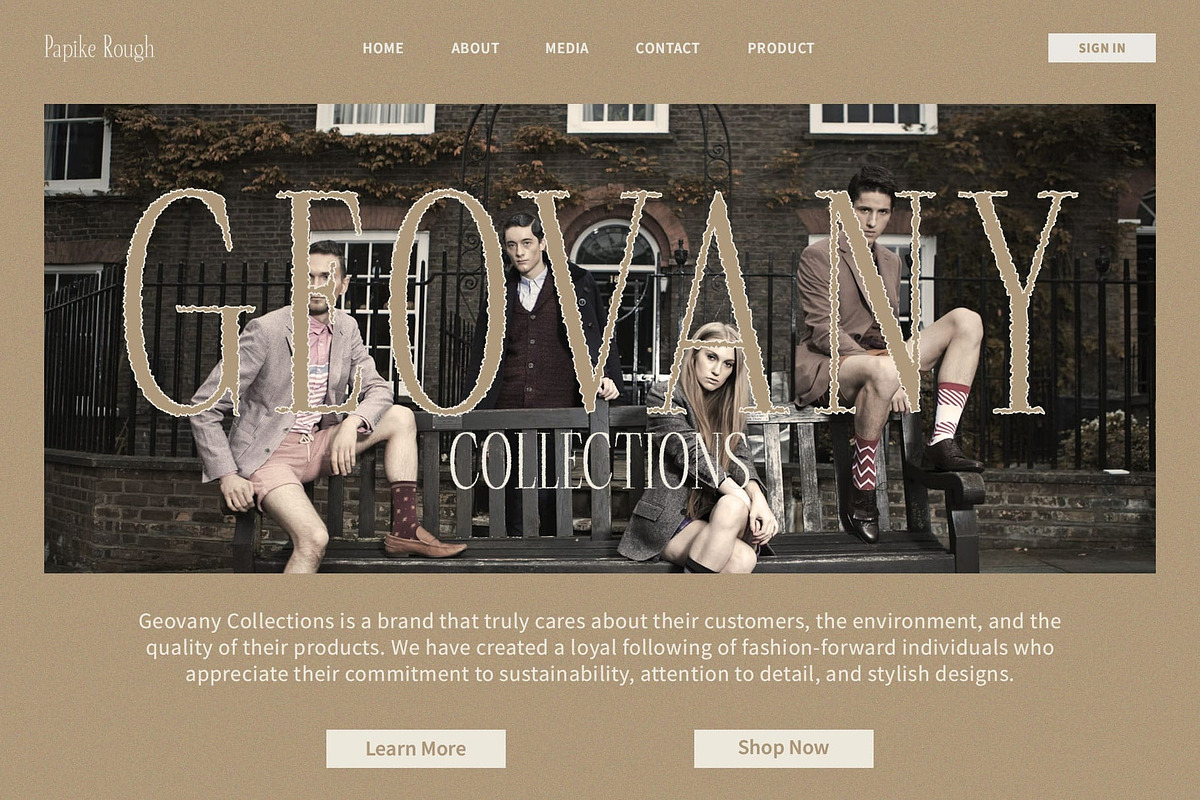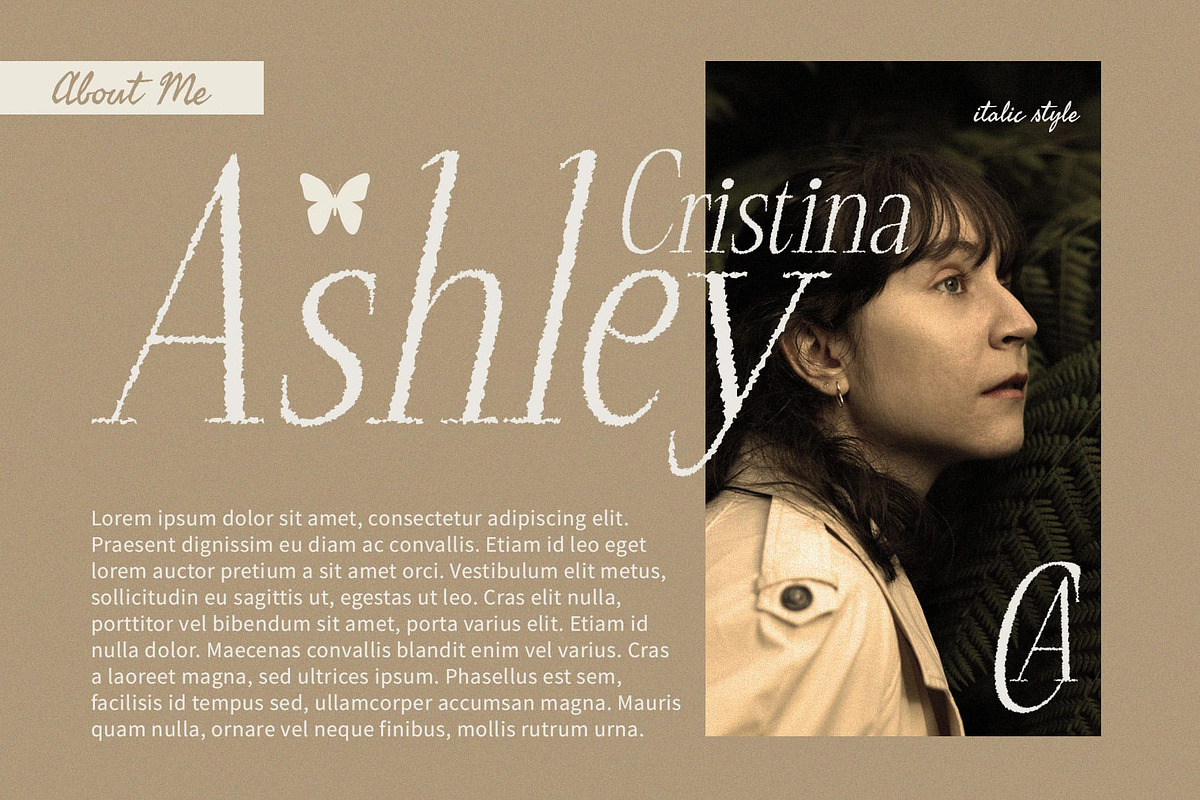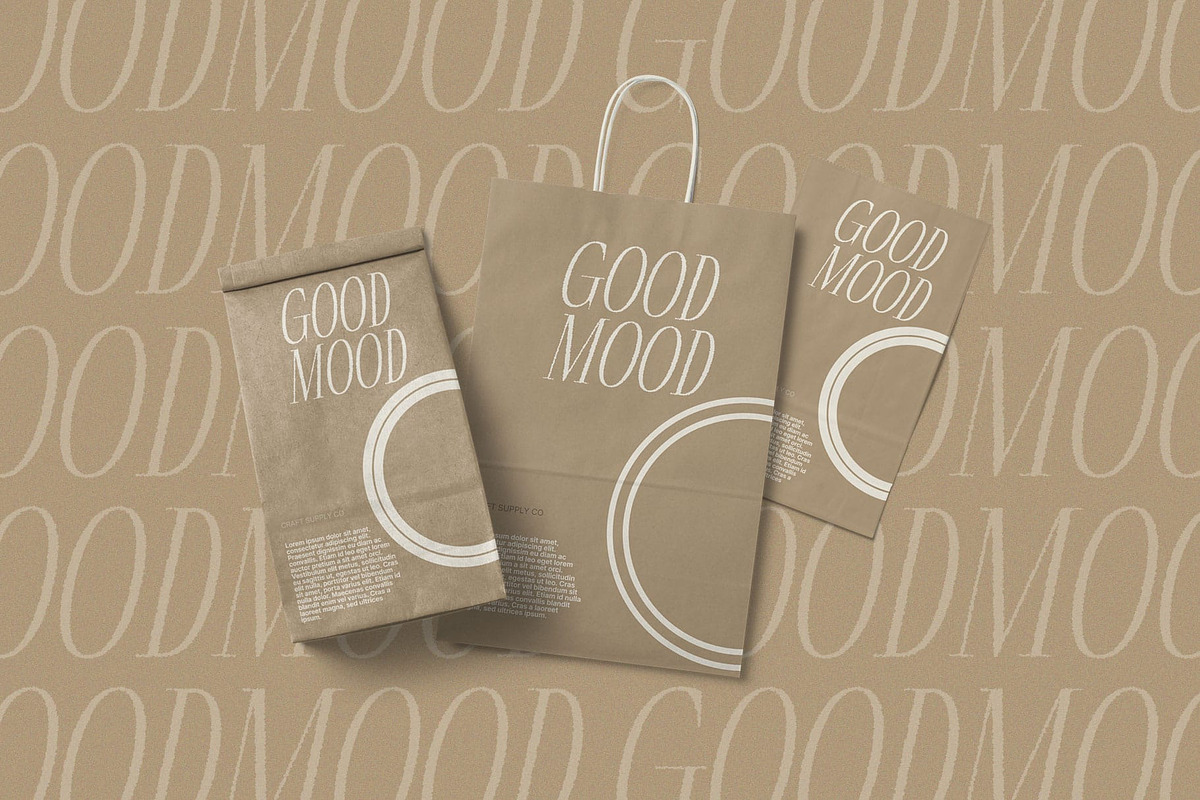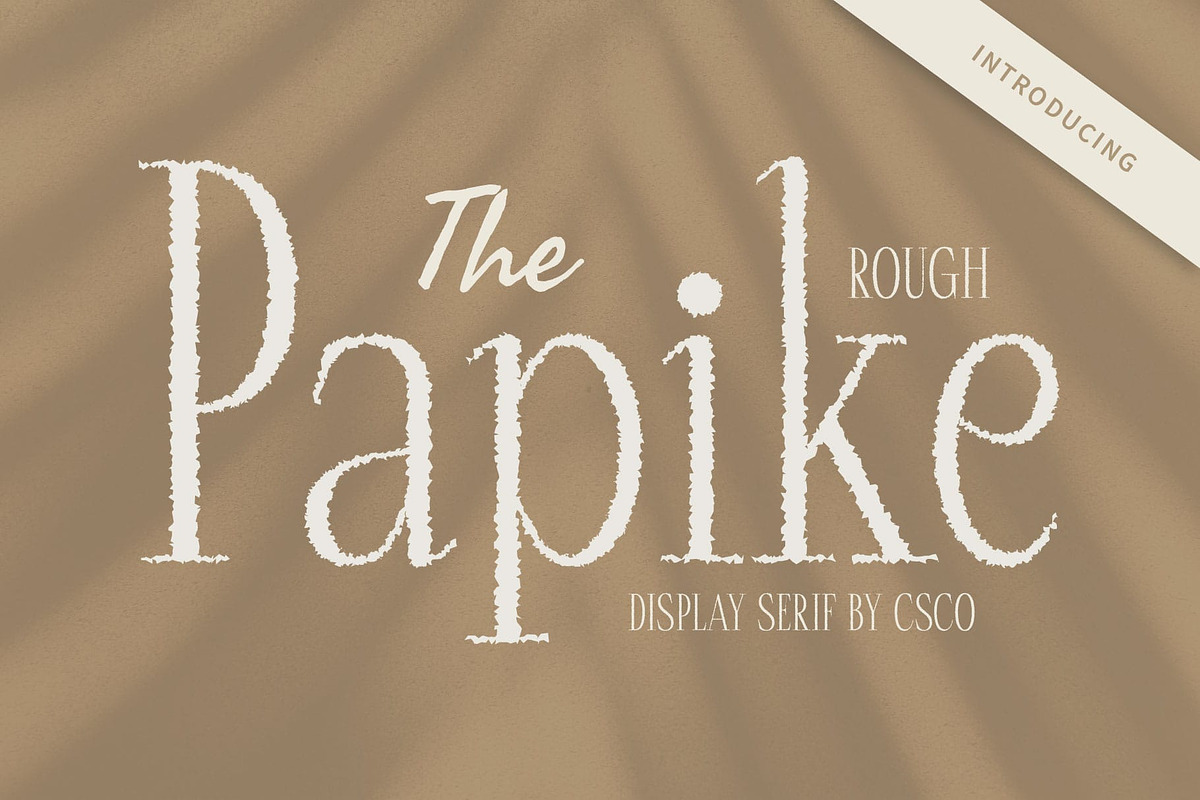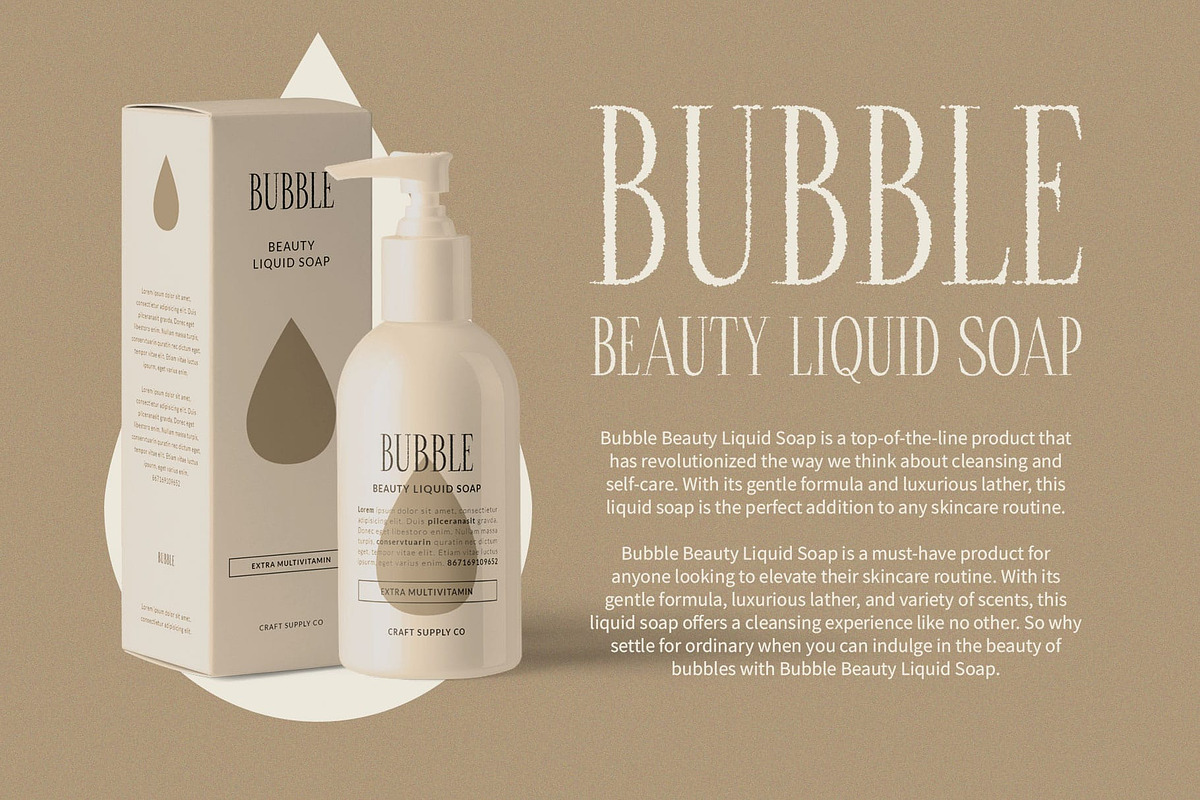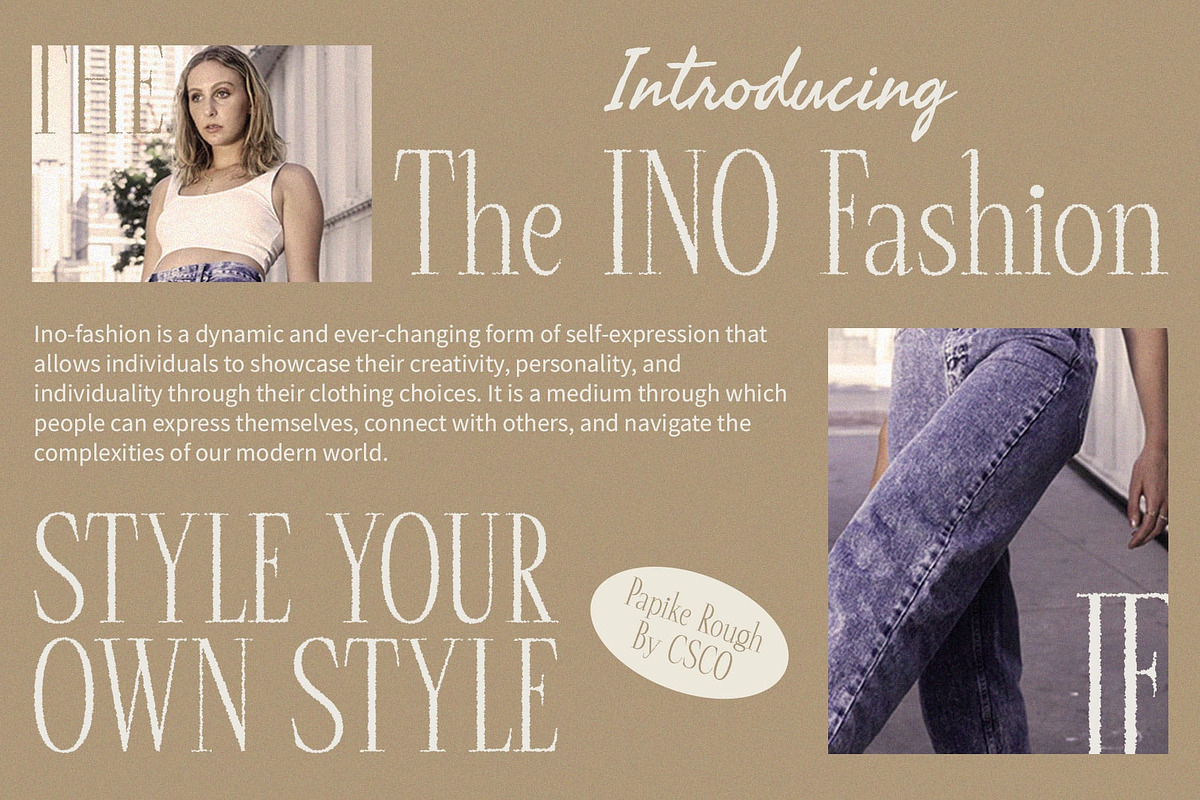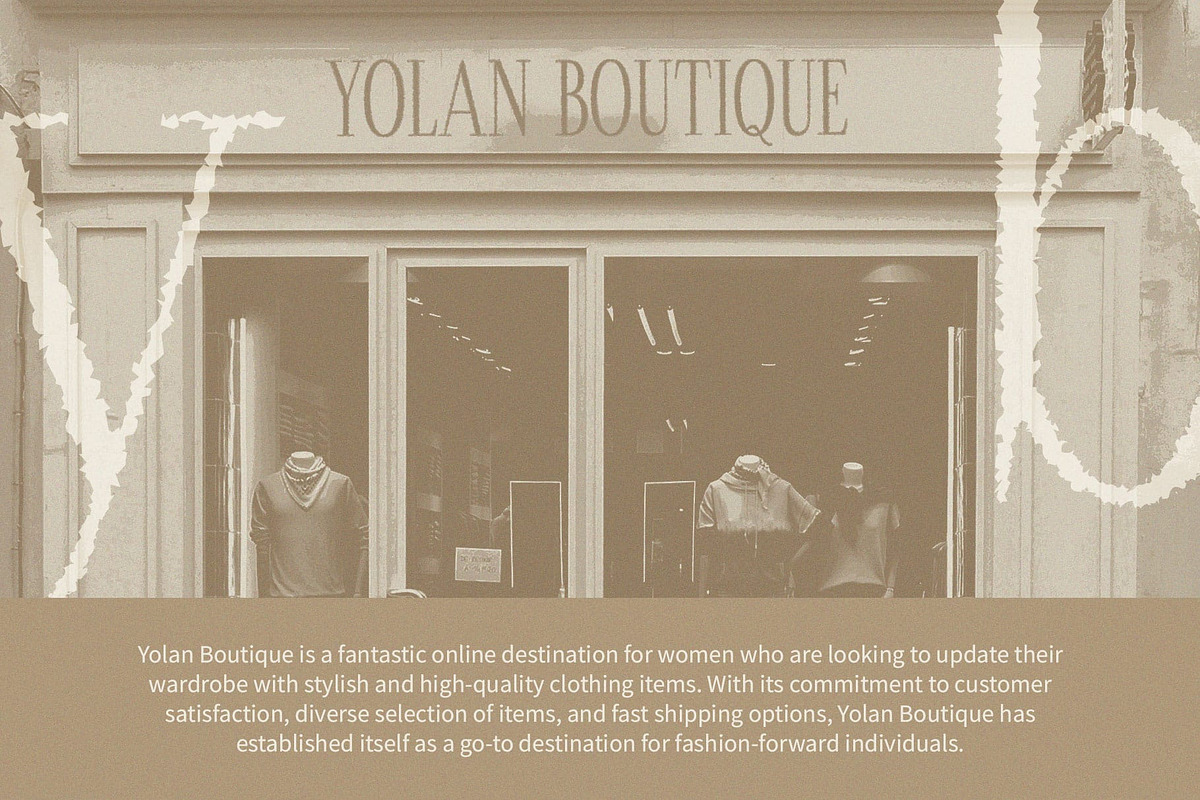
Papike Rough
Papike Rough: Vintage Charm in Display Typography
Vintage-Inspired Serif Design Papike Rough embodies the essence of vintage charm with its condensed serif display style. The moderate contrast adds depth to its nostalgic appeal.
Rough Texture for Retro Vibes Infused with a rough texture effect, This font exudes retro vibes reminiscent of old-school signage and typography. The roughness adds character and authenticity to its appearance.
Ideal for Vintage and Retro Designs Tailored for vintage and retro-themed projects, This font is the perfect choice for achieving an authentic vintage aesthetic. From posters to branding, its condensed serif style adds a touch of nostalgia.
Versatile Usage Across Retro Projects Whether it’s reviving retro branding or creating vintage-inspired editorial layouts, This font offers versatility across various retro design applications. Its condensed form and rough texture elevate the retro vibe in any project.
Nostalgic Elegance for Retro Designs This font combines vintage charm with modern display typography, featuring a condensed serif design and rough texture effect. Perfect for vintage and retro projects, it adds an authentic nostalgic touch to any design endeavor.